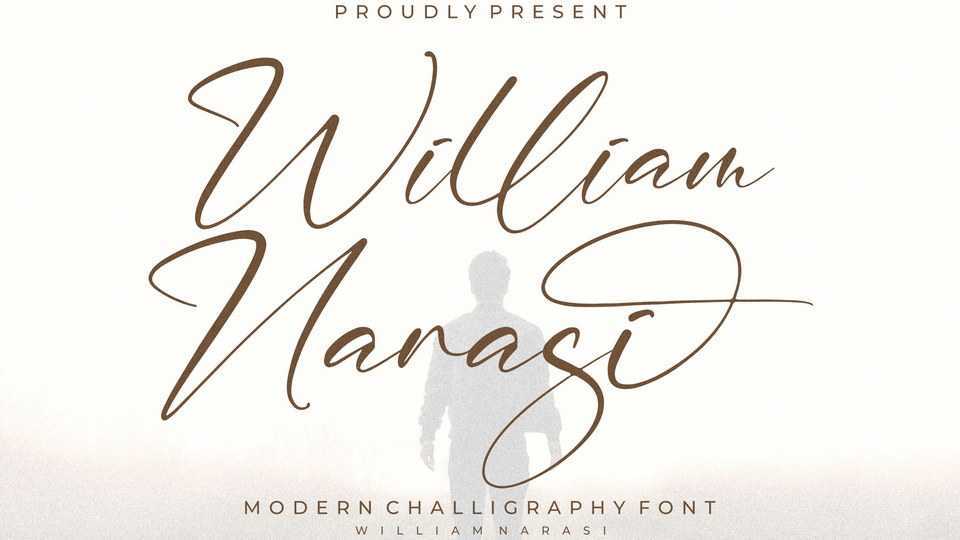
Download William Narasi font, a stylish and dynamic calligraphy typeface. William Narasi is suitable for any projects such as logos, branding, magazines, apparel, ads and all your other luxury projects that need a premium signature taste.
Designer: Integritype Studio